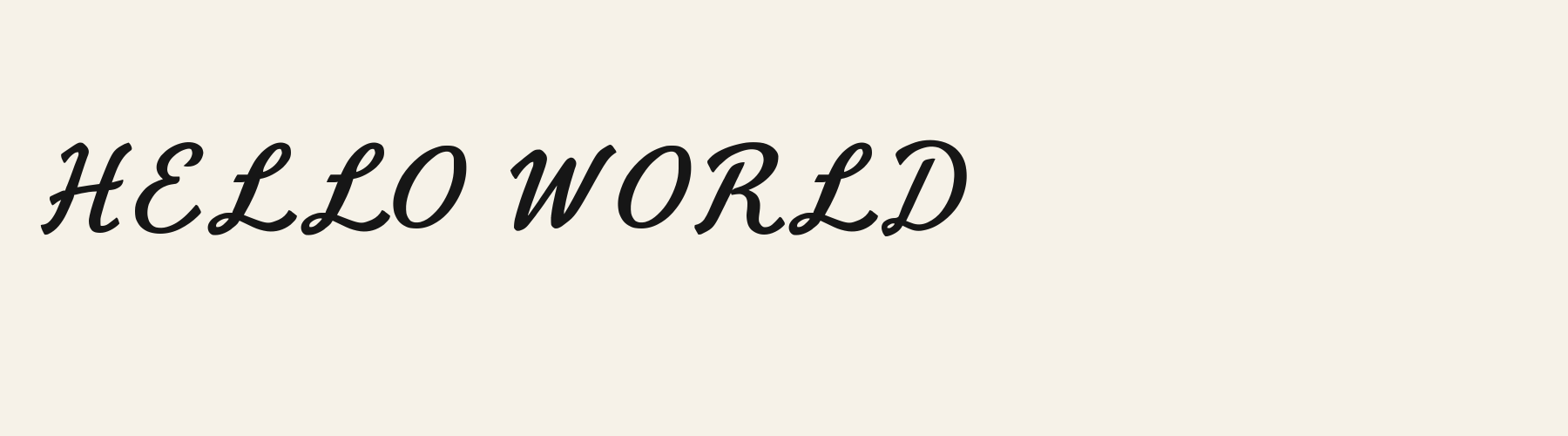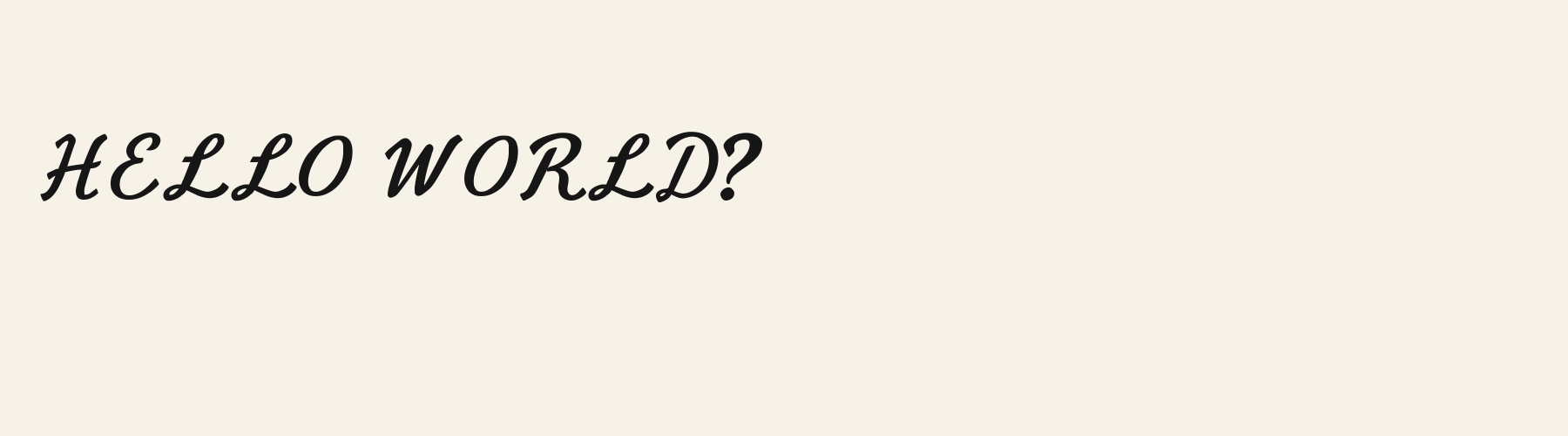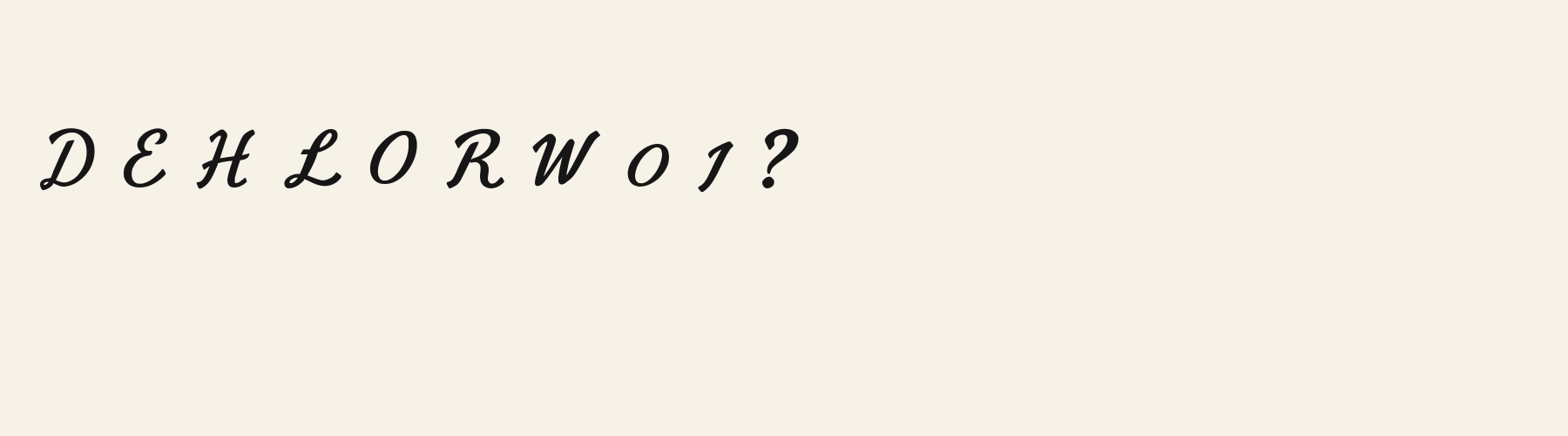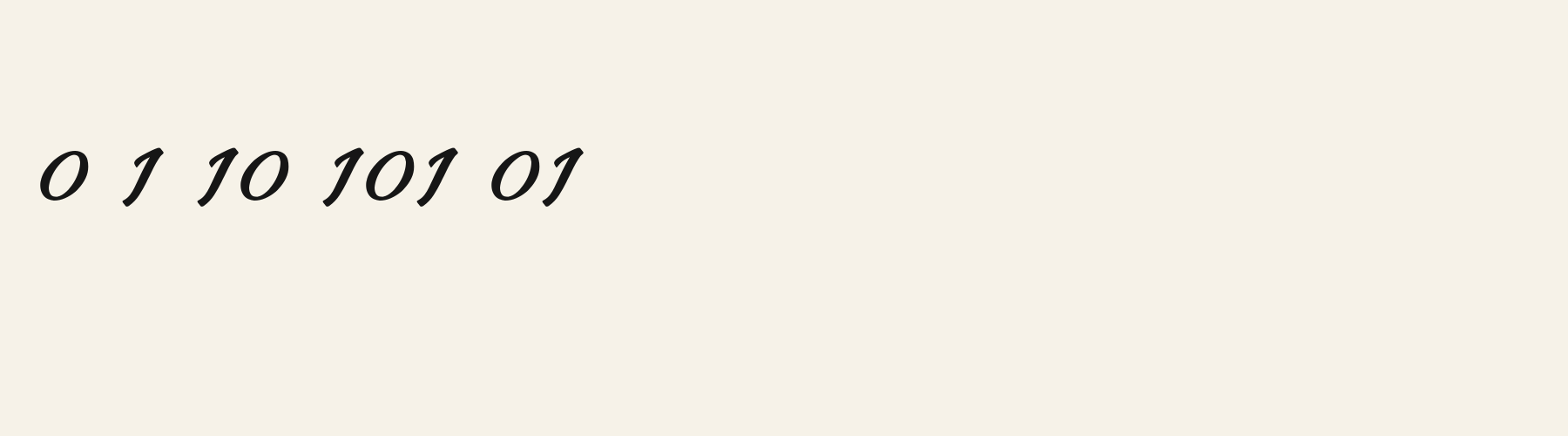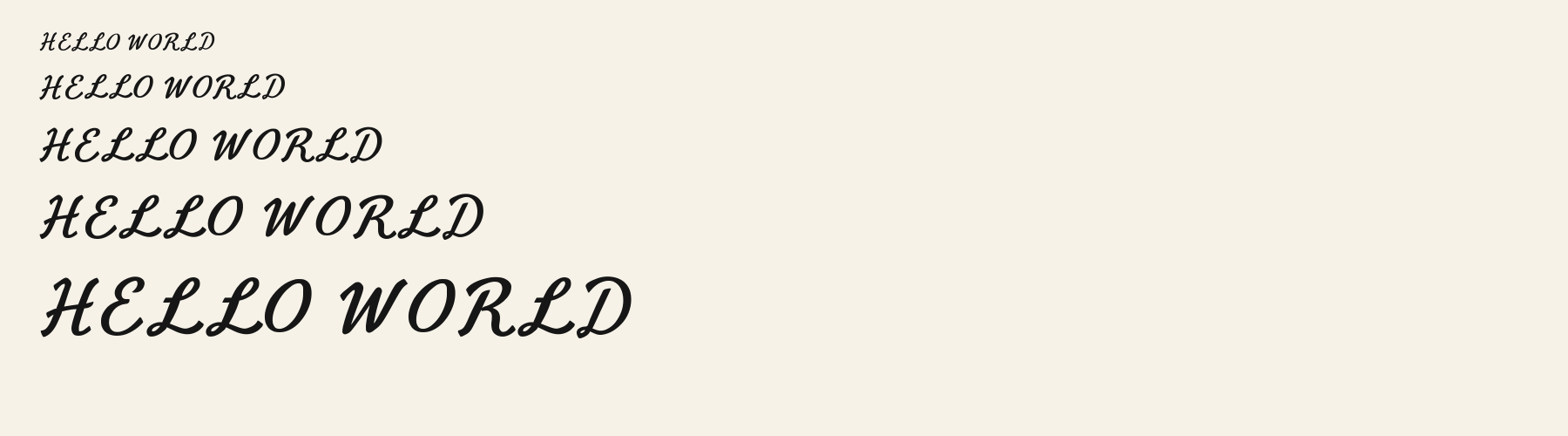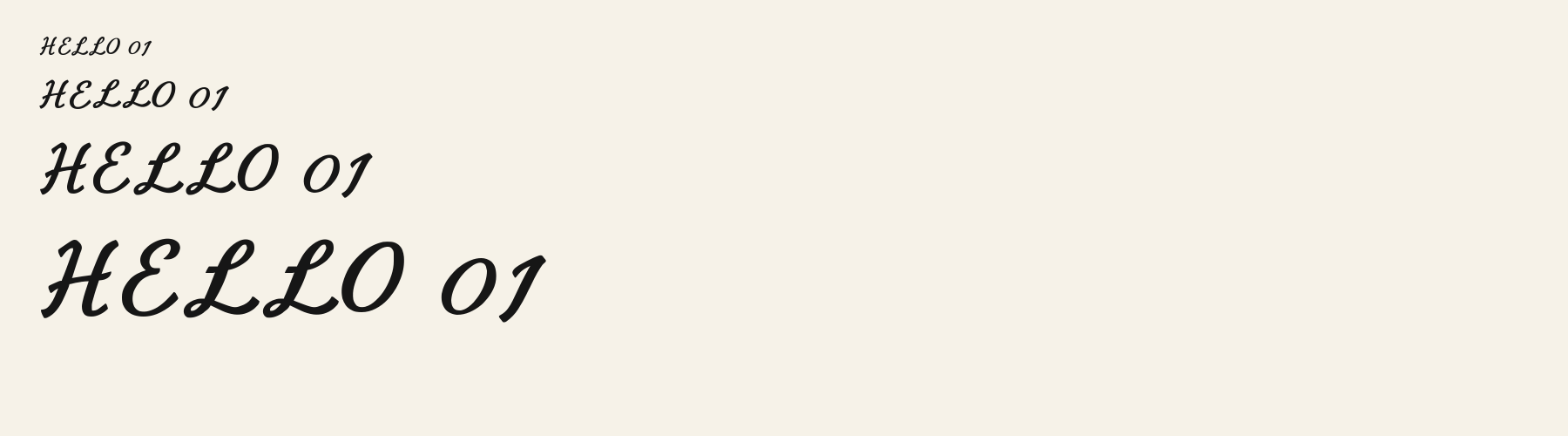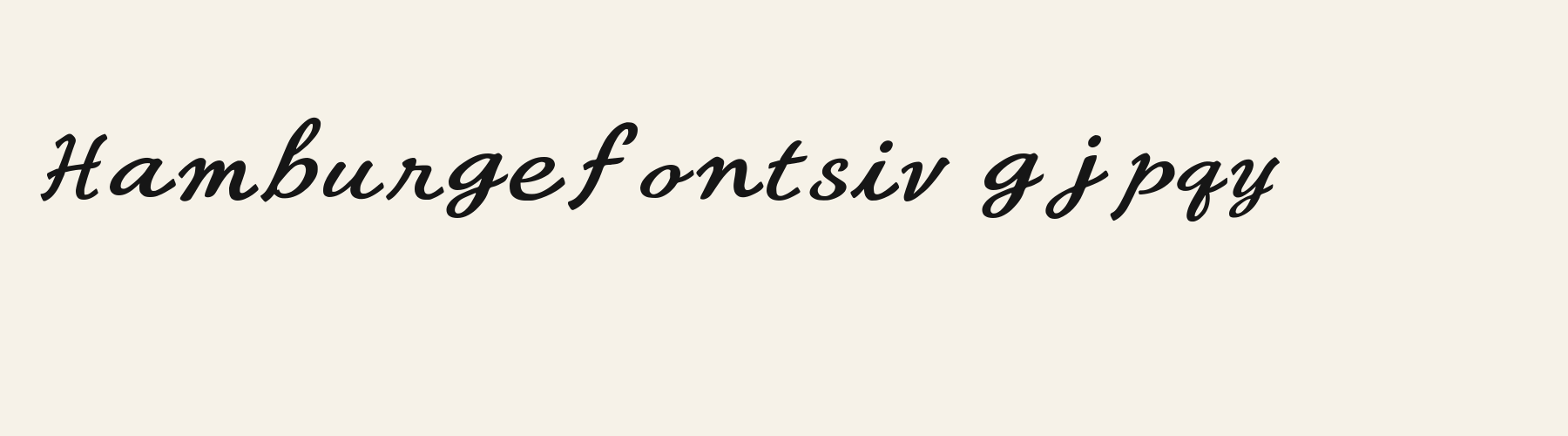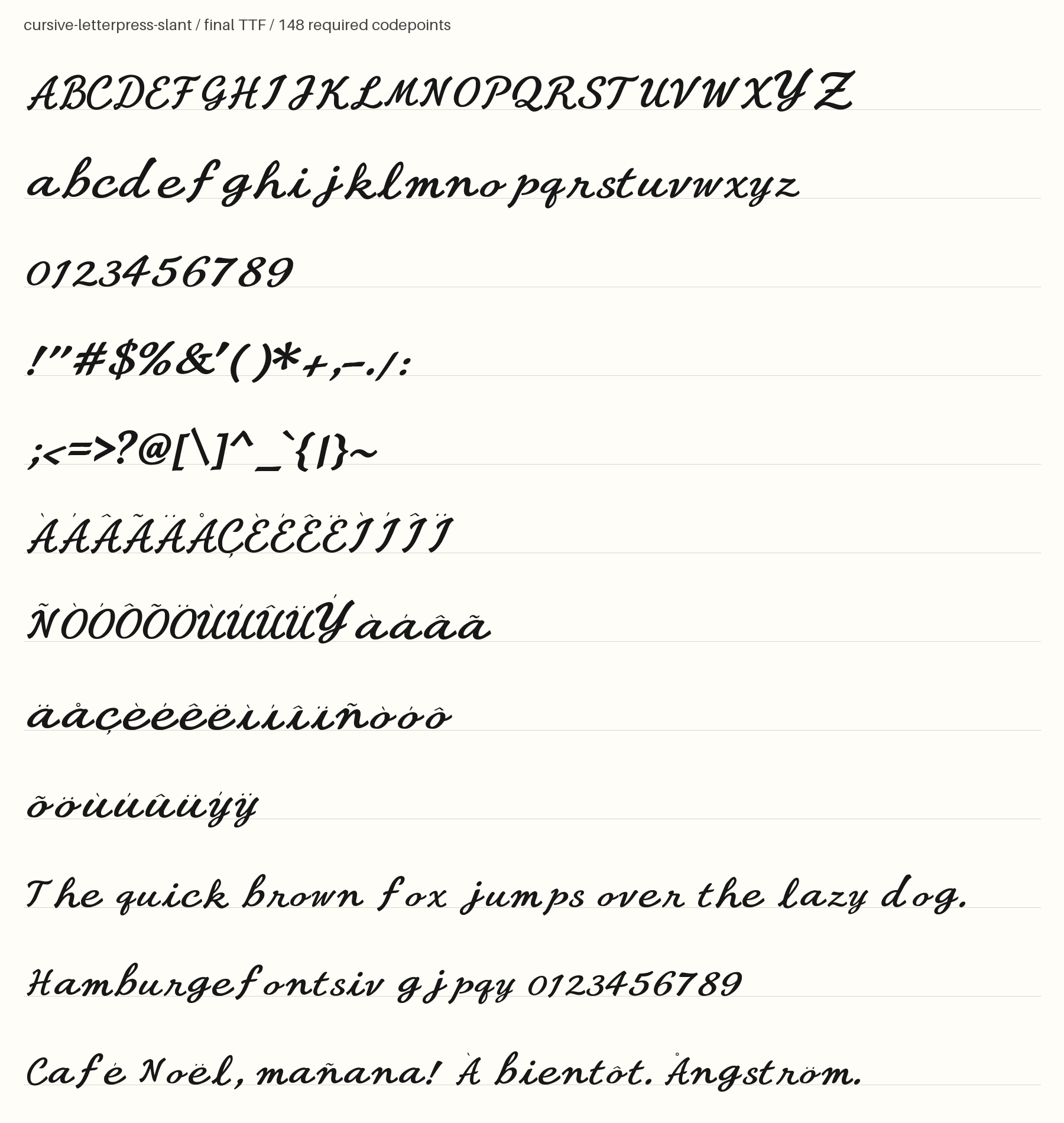
Cursive Letterpress Slant is a vintage shop signs and labels. Firm medium-weight strokes with crisp wedge terminals, no distressed texture. Best for vintage shop signs and labels.